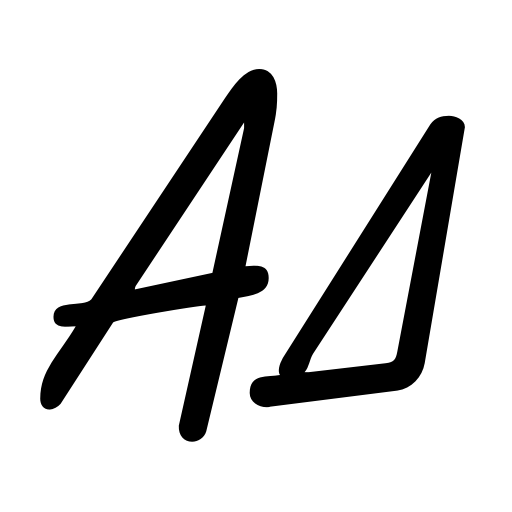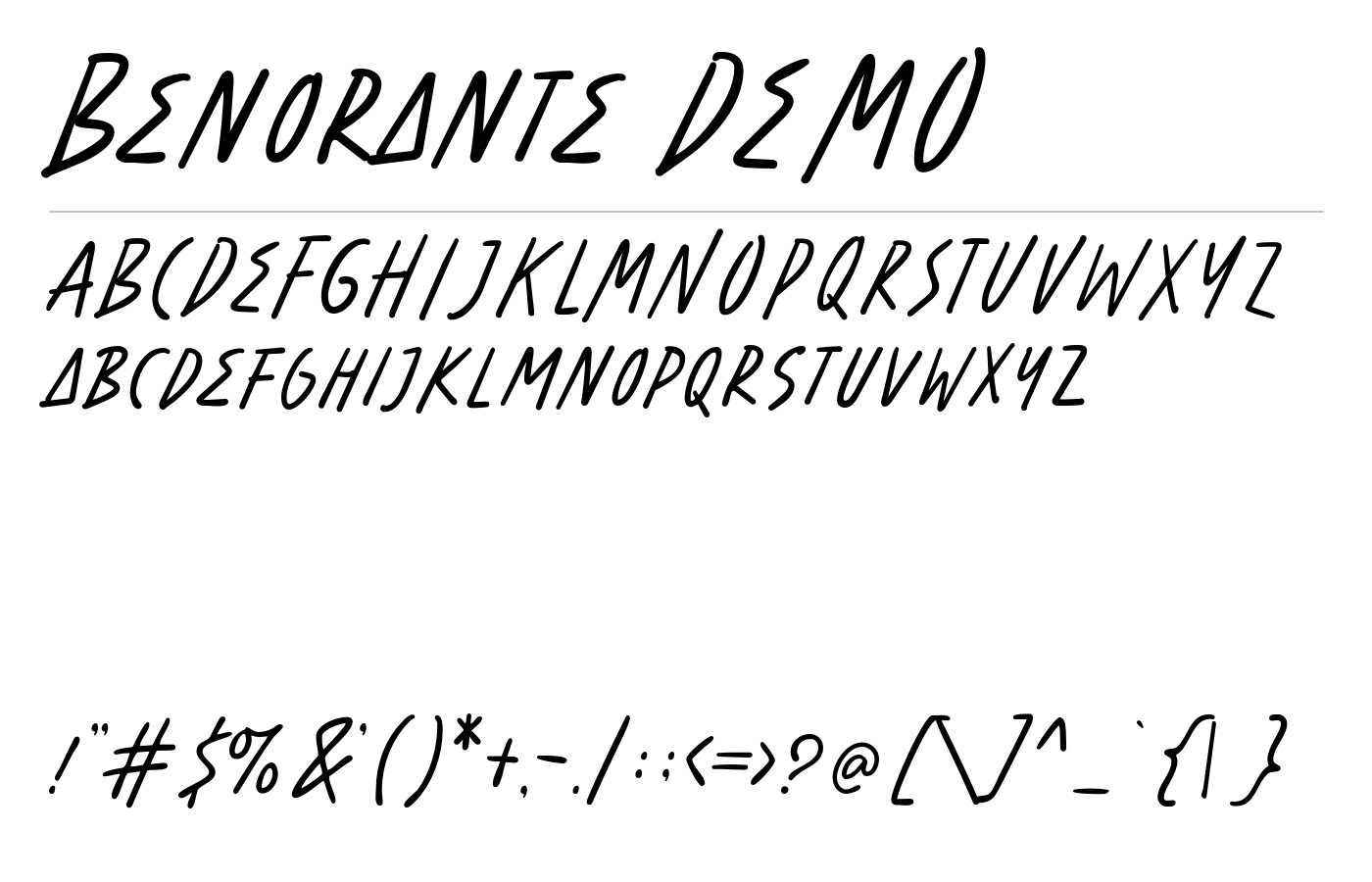
Benorante DEMO is a lively, handwritten sans serif font with a playful, casual spirit. Its narrow, slightly slanted letterforms and varied stroke widths give it an energetic and personal feel, making it perfect for creative branding, informal headlines, and artistic projects that seek a dynamic, approachable vibe. This font works well where a touch of individuality and expressiveness is desired without sacrificing readability.
Benorante DEMO Font
About Benorante DEMO Font
| Font family | Benorante DEMO Font |